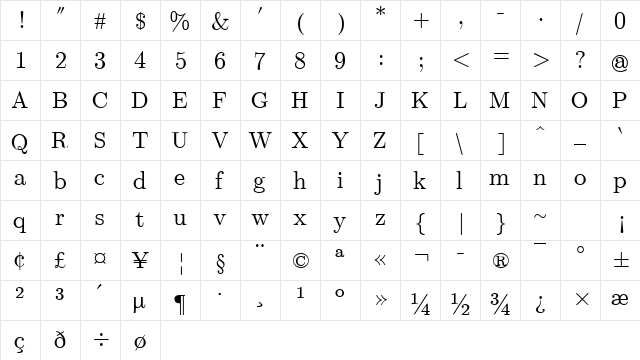
Symbola Regular
| Designer | George Douros |
Design Context for Symbola Typeface
Symbola offers clean, dependable letterforms without strong stylistic allegiance, making it a practical choice for designers who need flexibility.